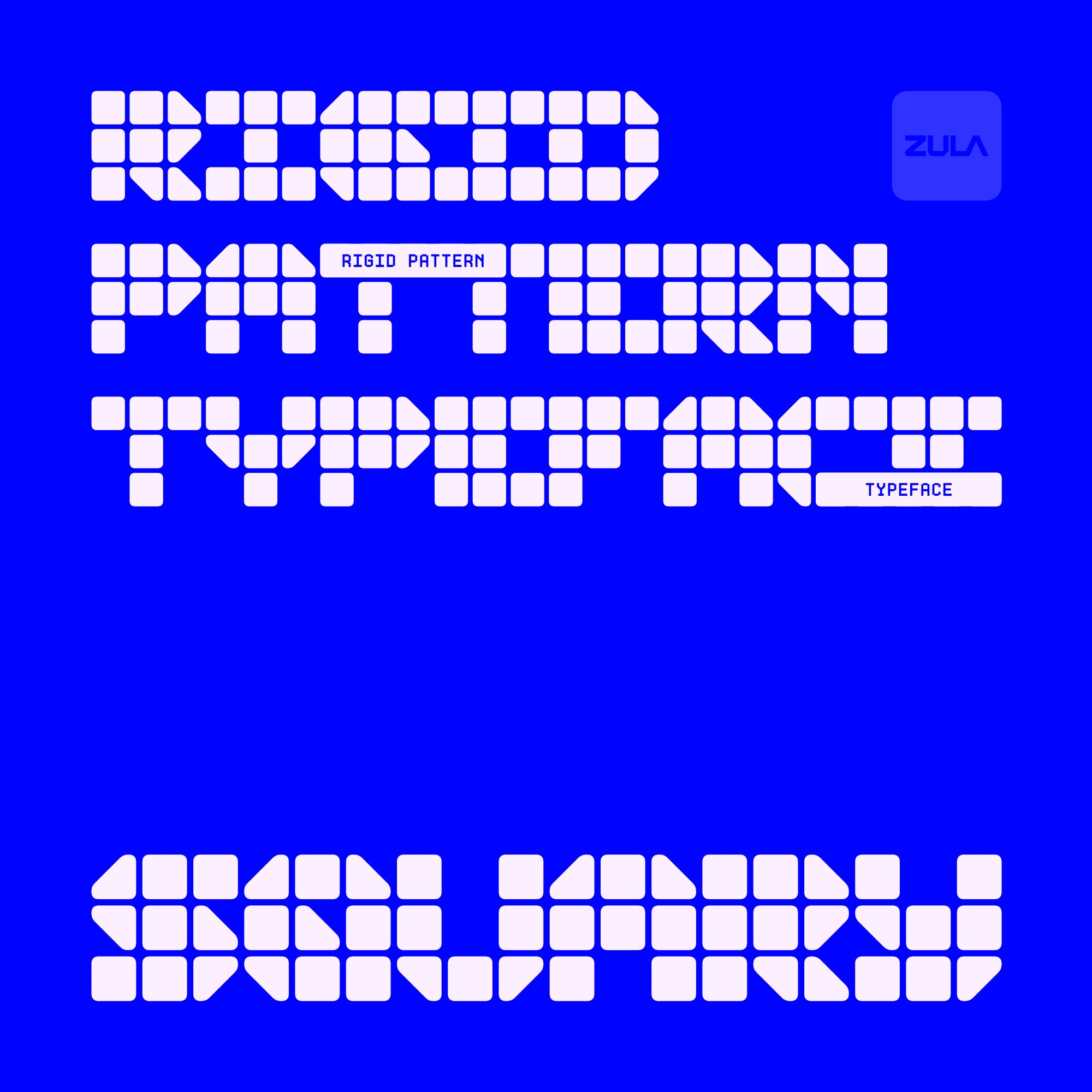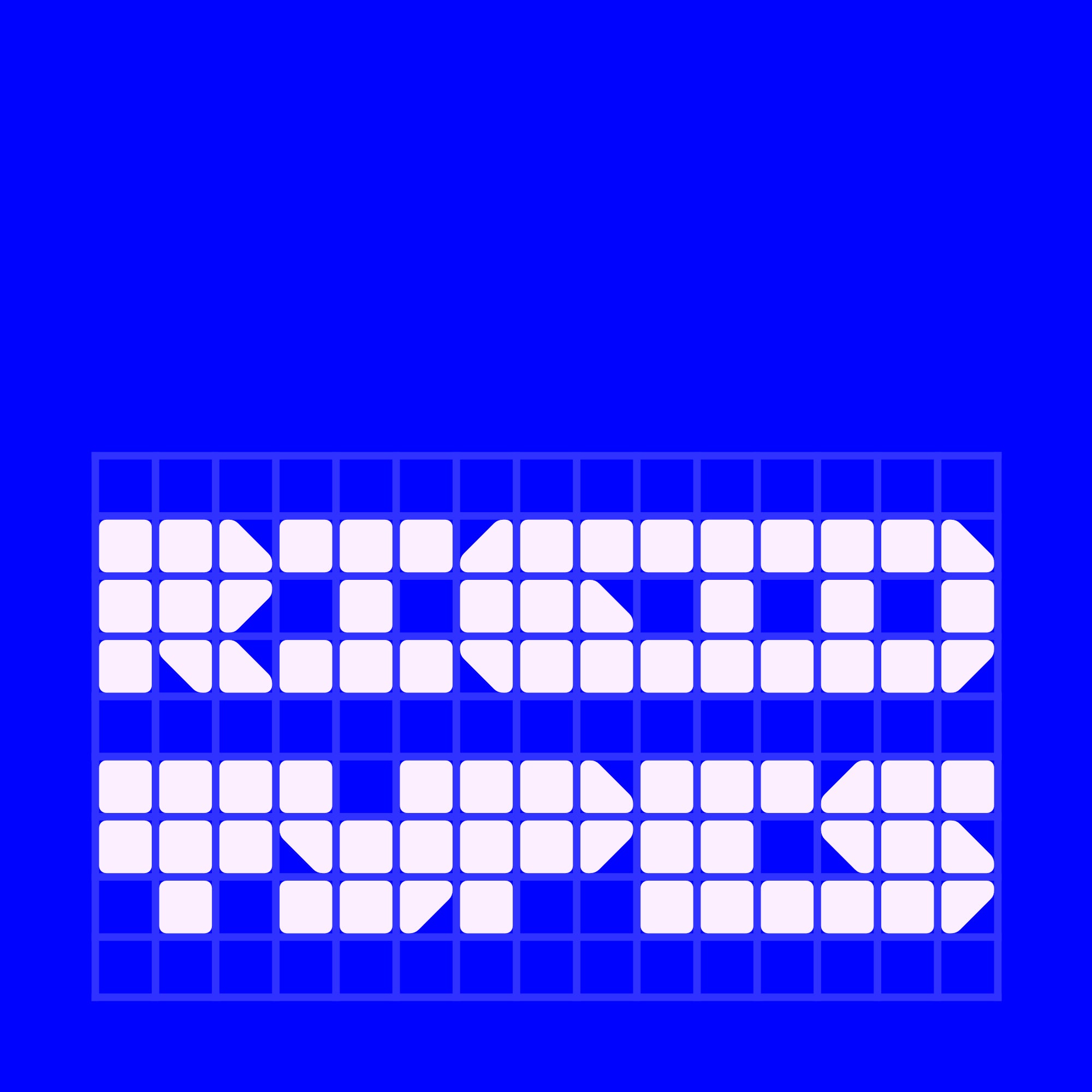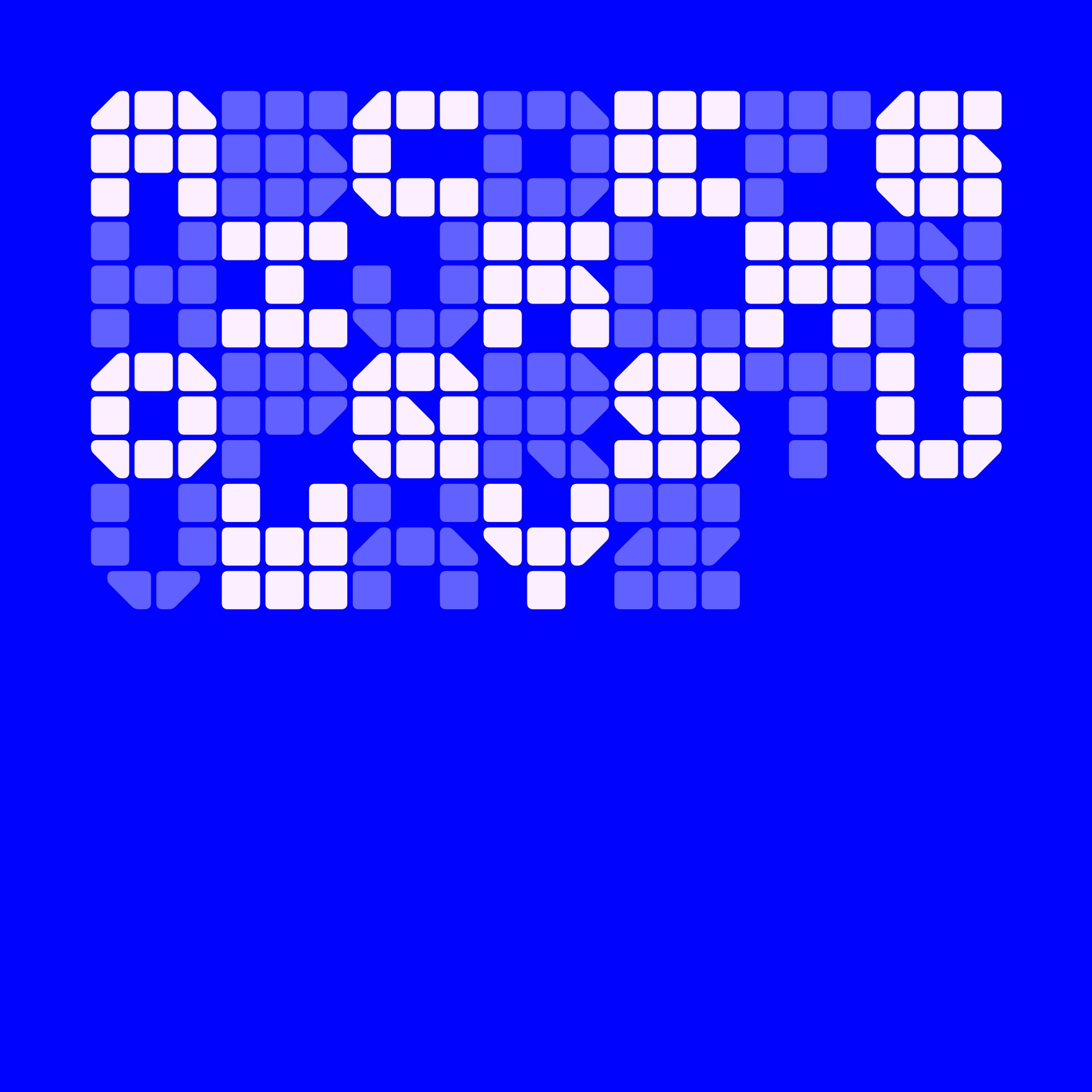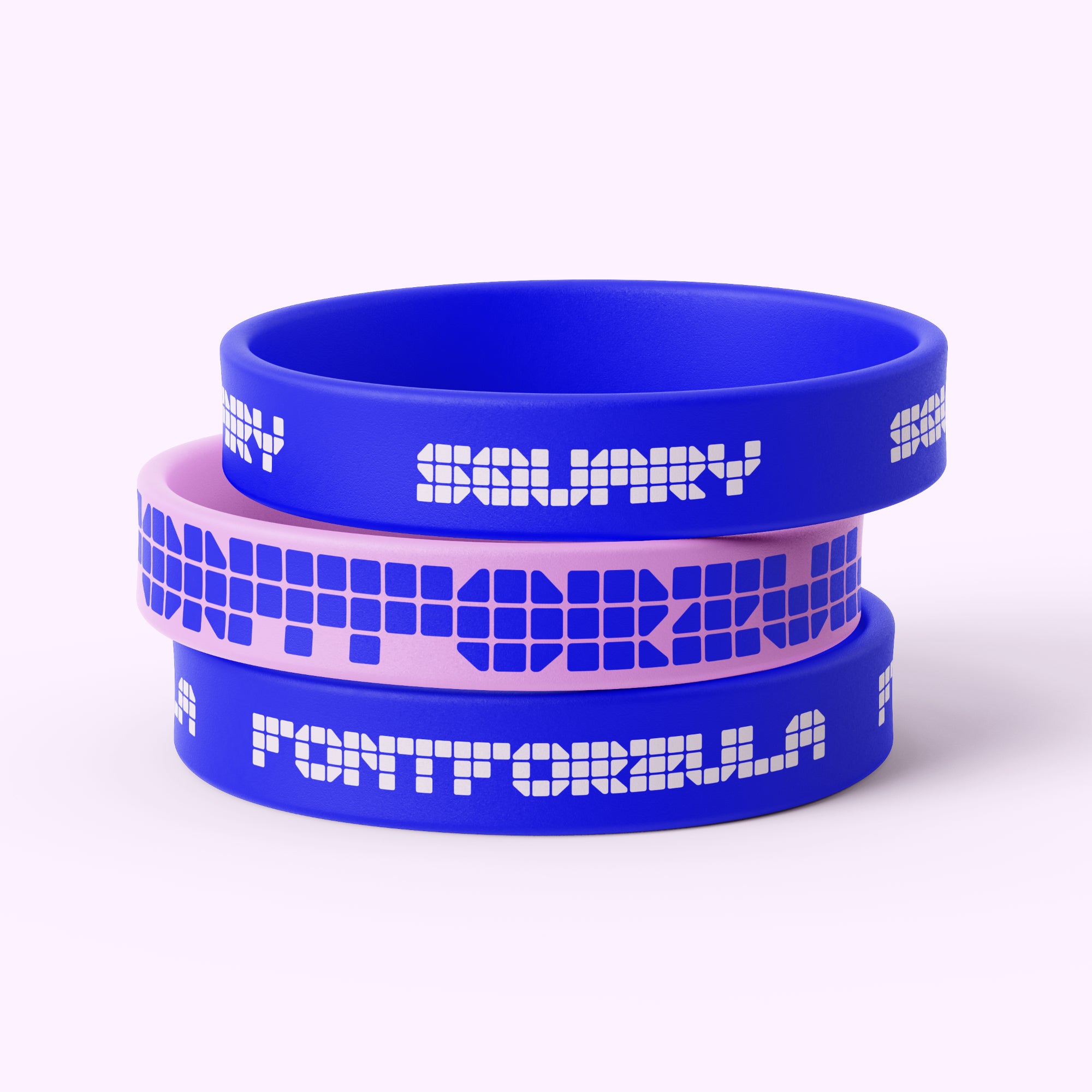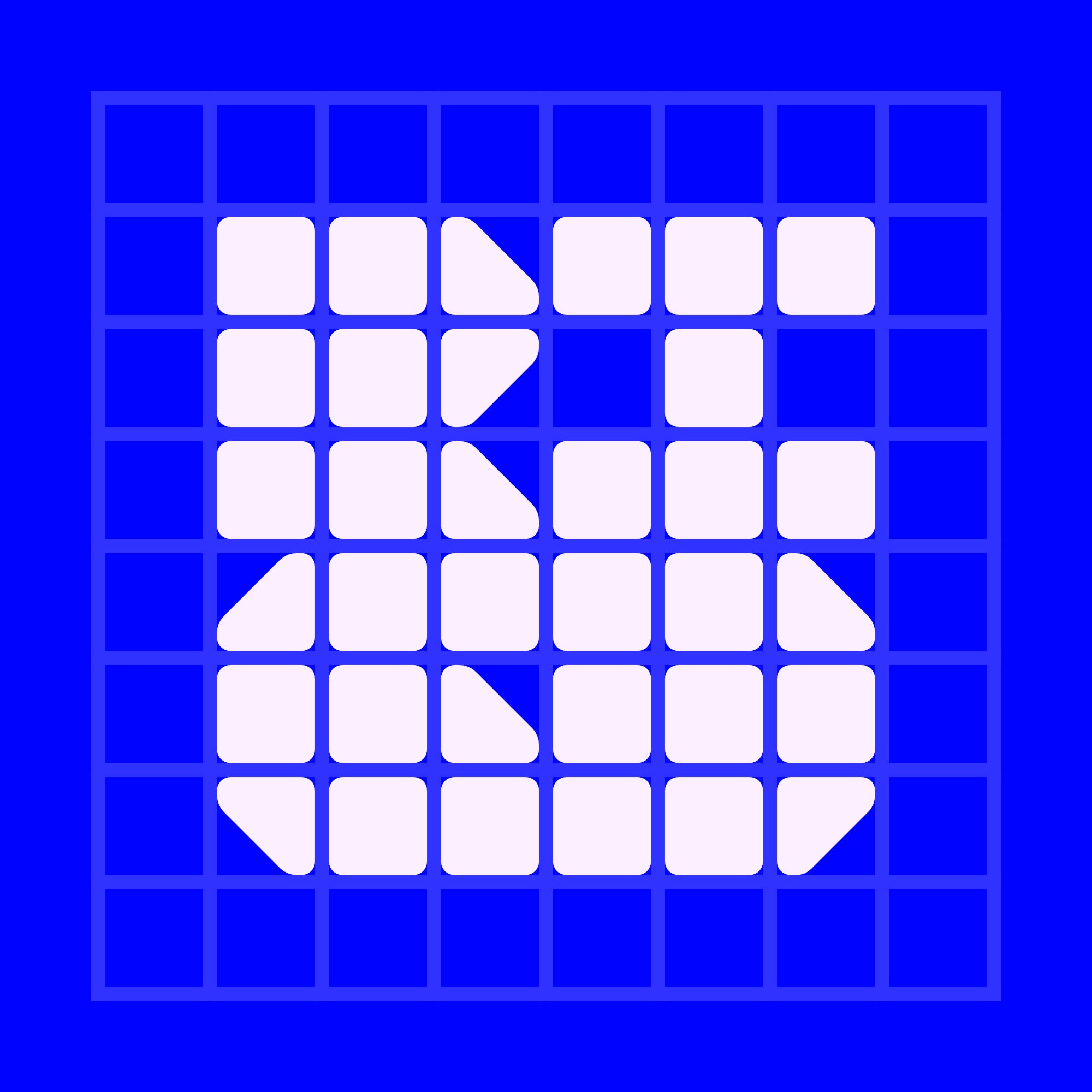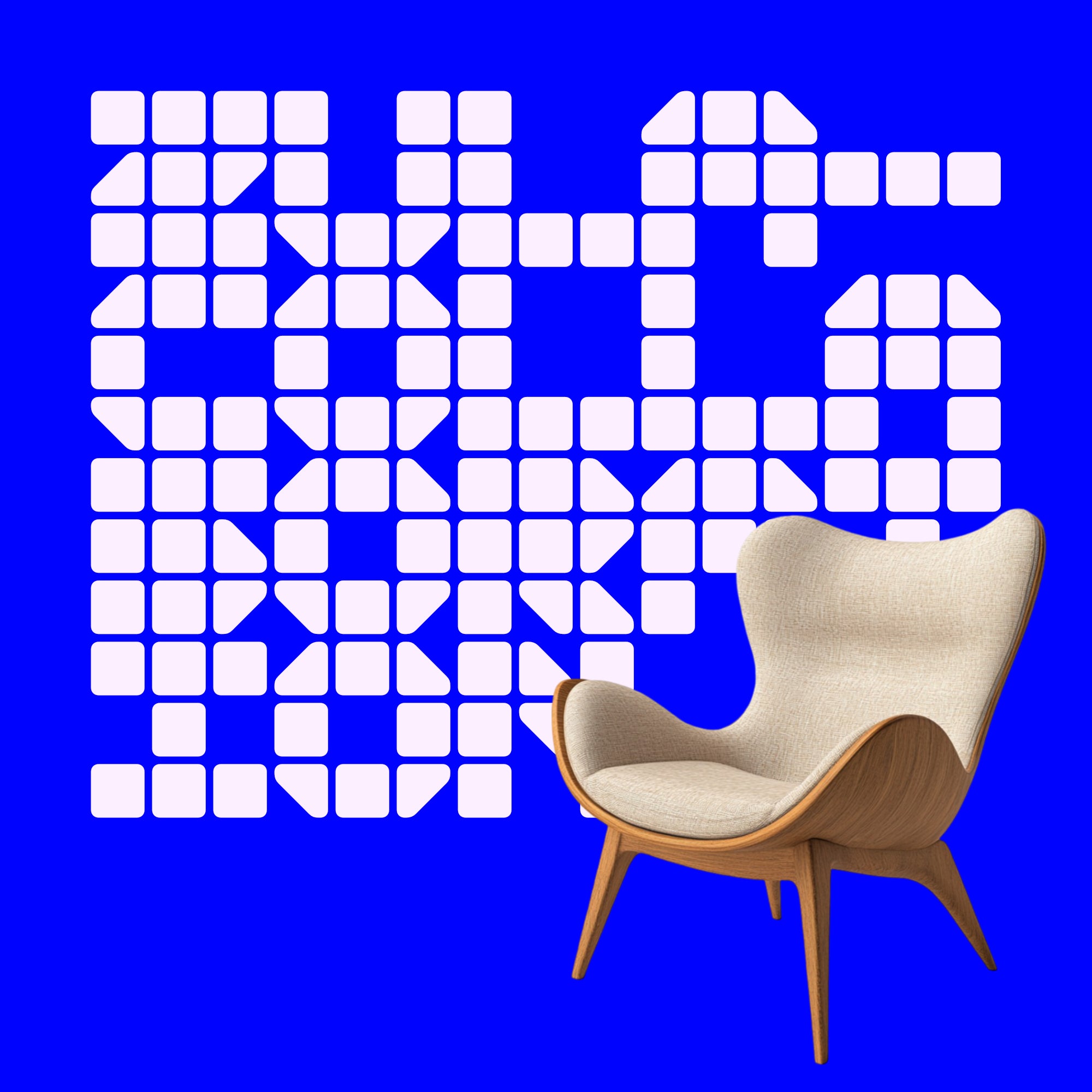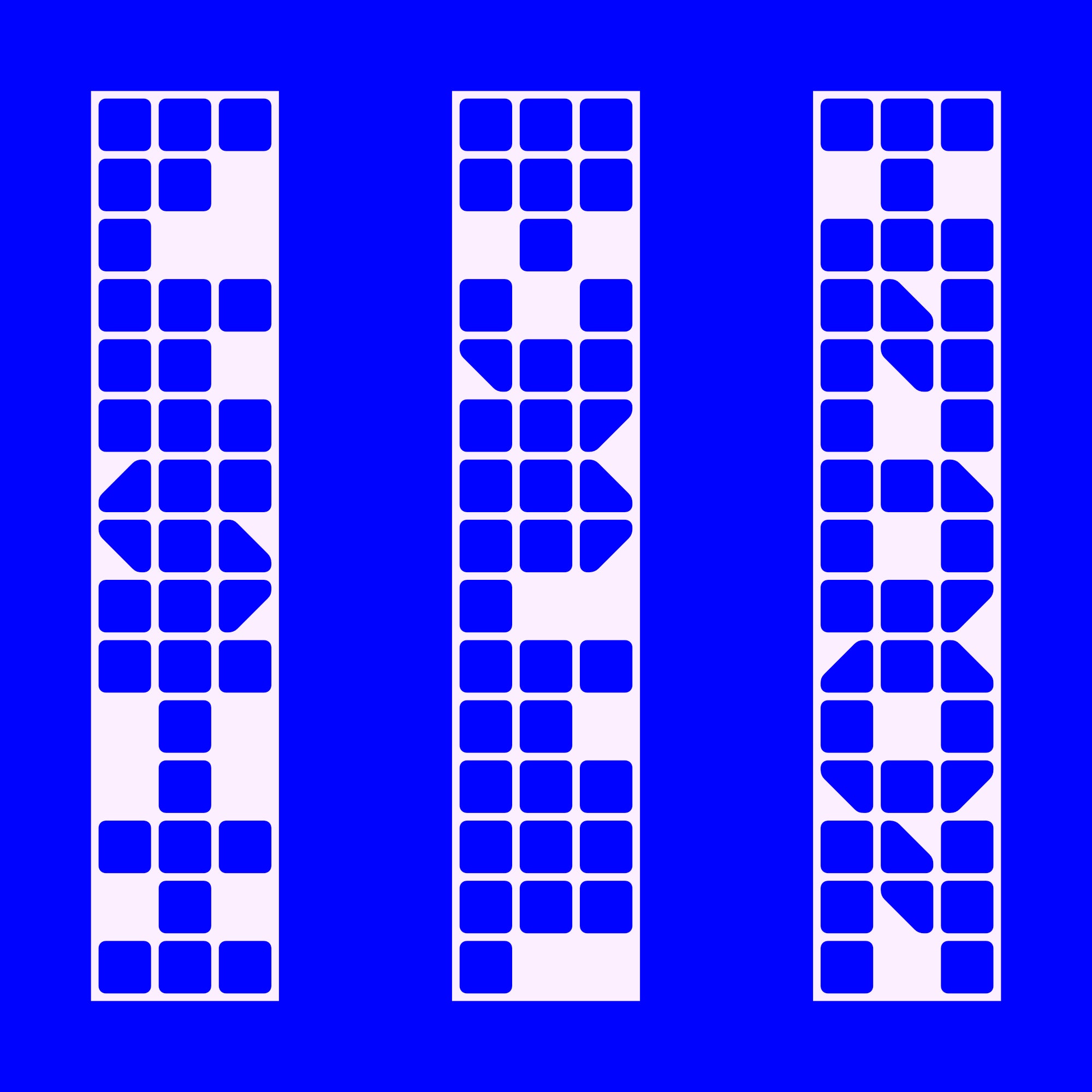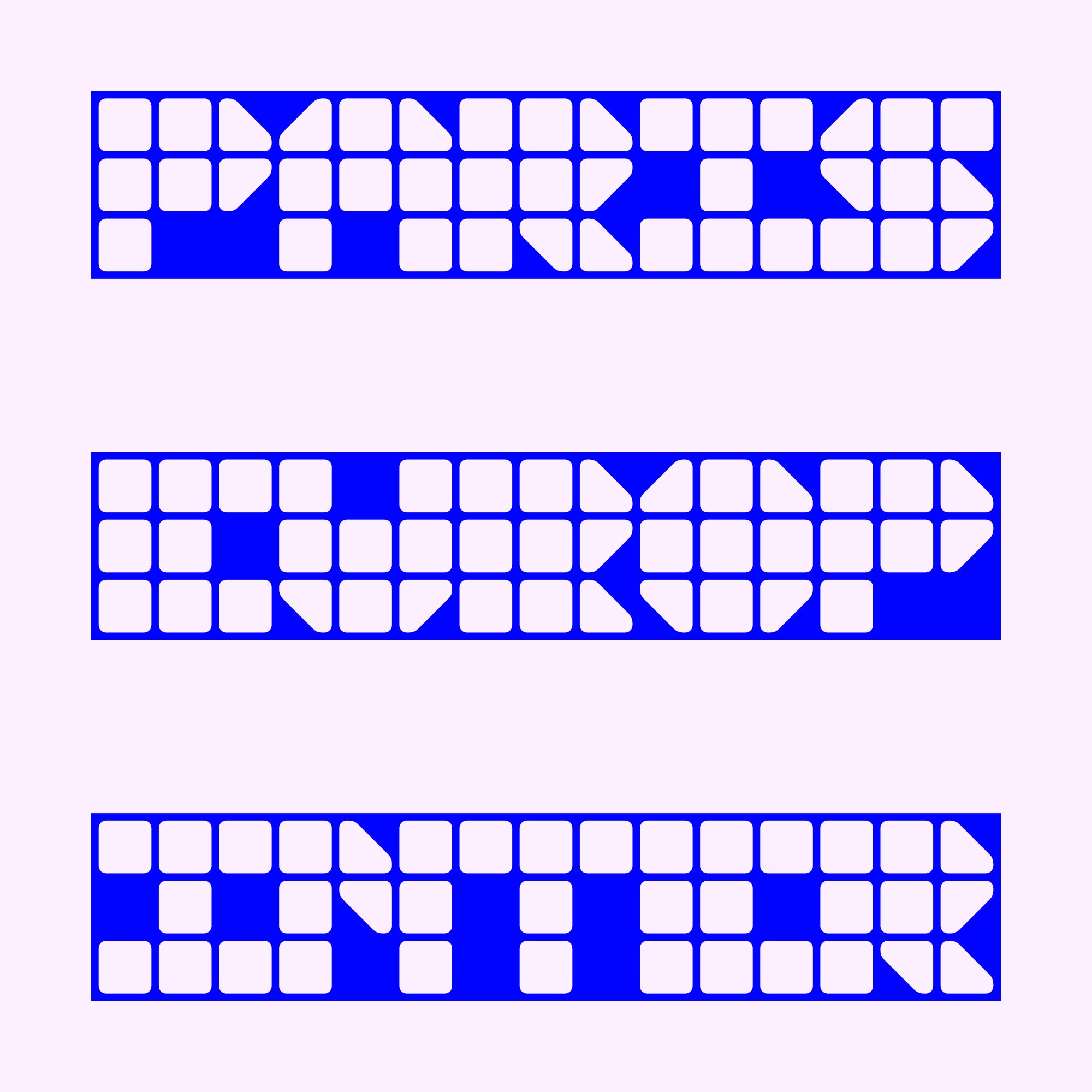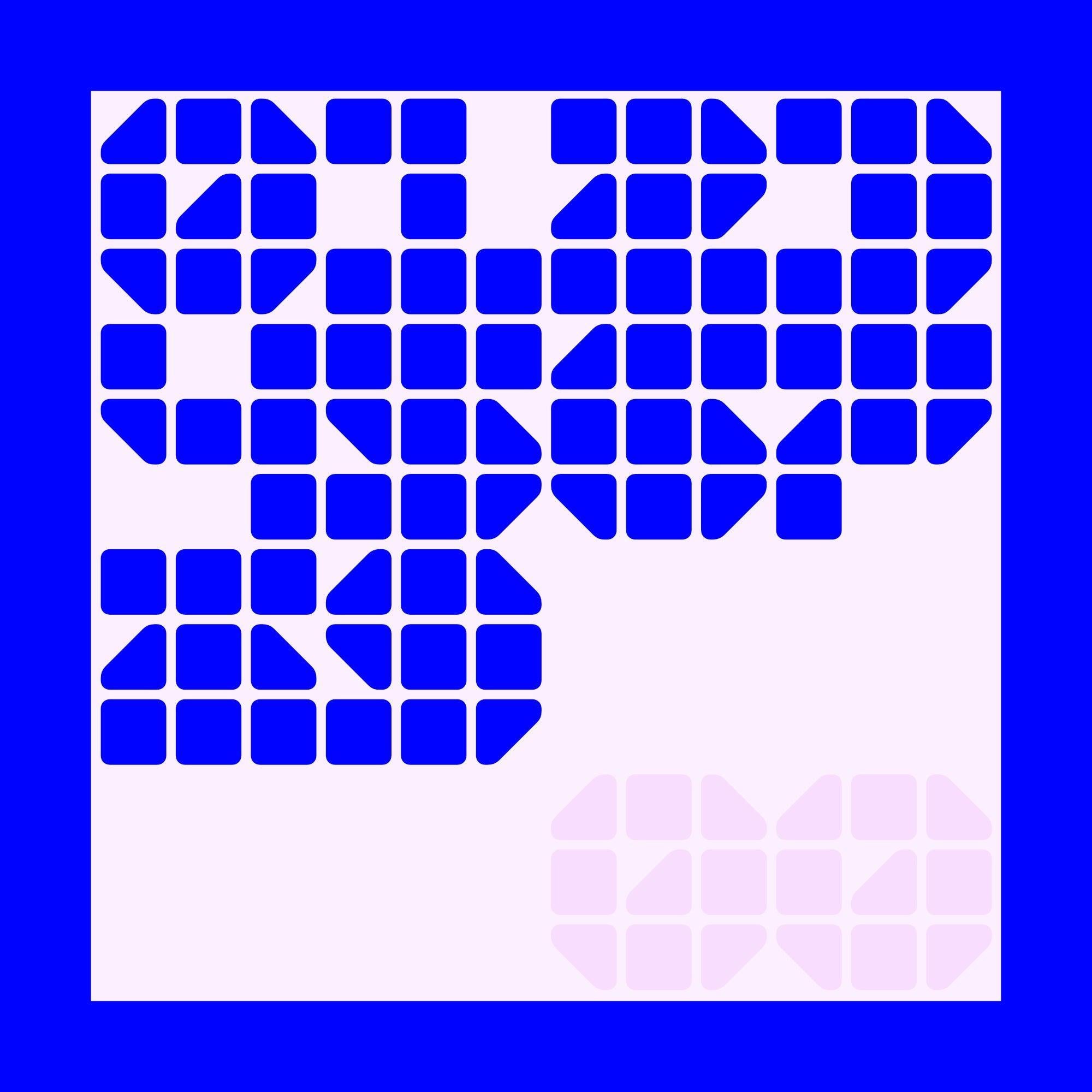
SQUARY Typeface
SQUARY Typeface is a typeface that is formed from a combination of rigid square patterns with rounded corners that are engineered into a unique and geometric shape.
• 26 LETTERS (ALL CAPS)
• 15 Letters Alternates
• 10 Numeral
• 5 Numeral Alternates
• Punctuation, Symbol,
• and Mark
SQUARY Typeface is a geometric typeface featuring a combination of rigid square patterns with rounded corners. It includes OTF/TTF and WOFF formats, 26 uppercase letters, 15 letter alternates, 10 numerals, 5 numeral alternates, as well as punctuation, symbols, and marks.